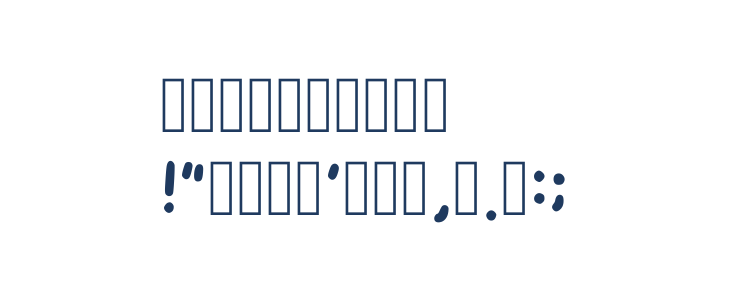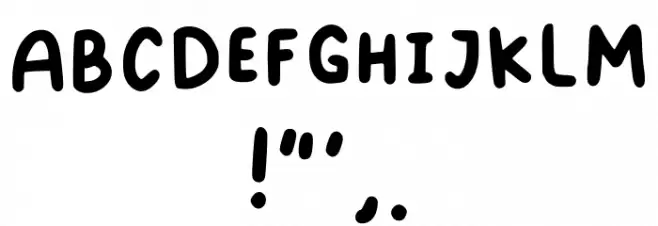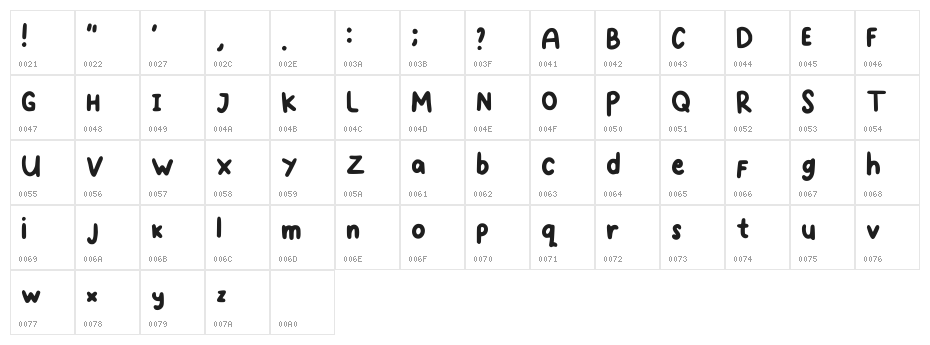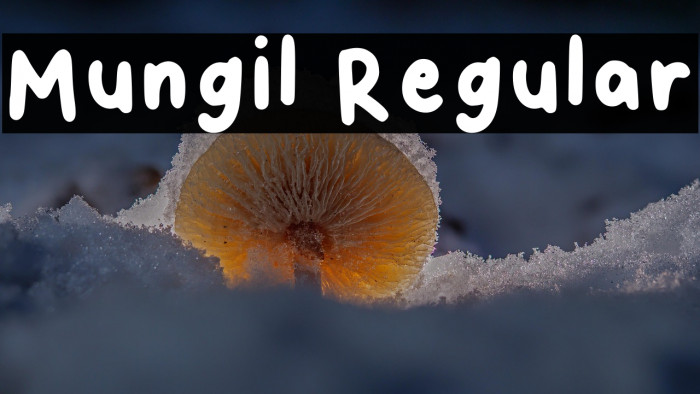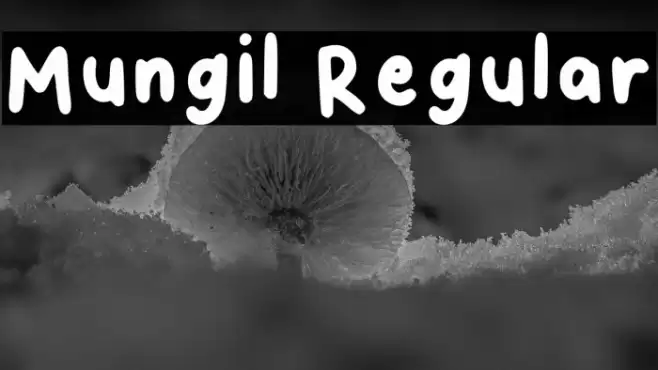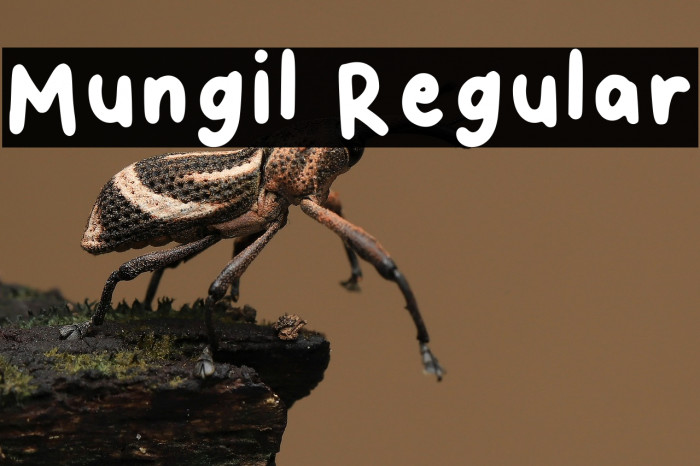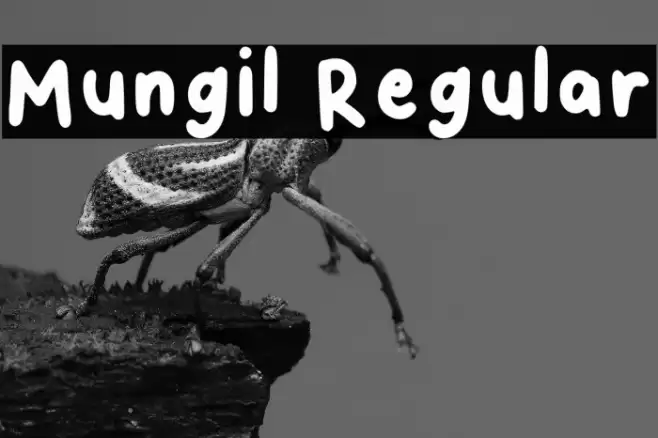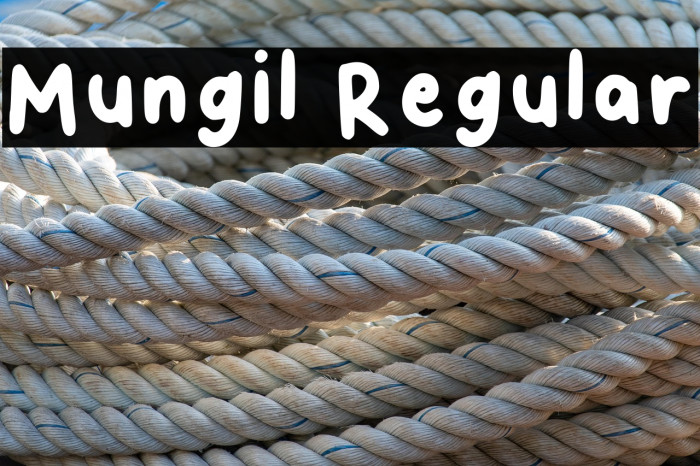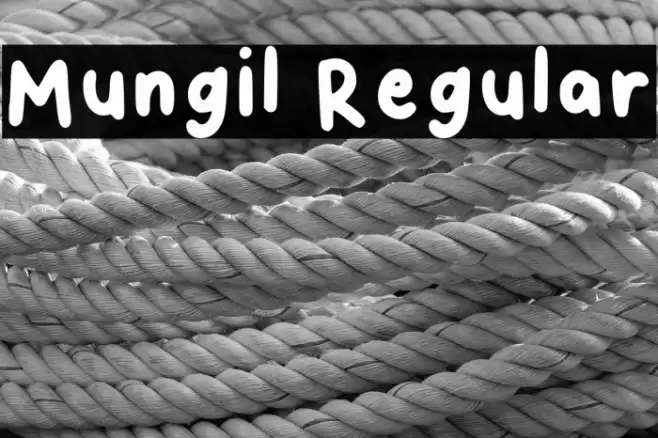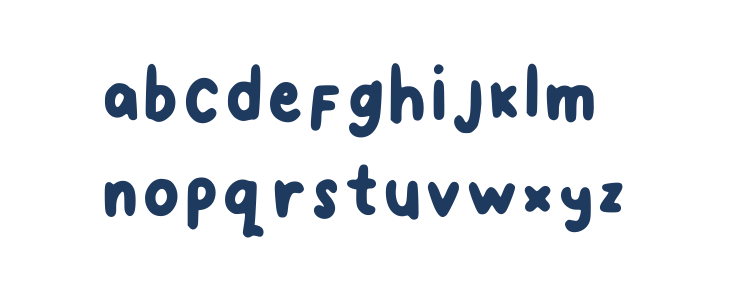
Mungil Regular Font
Mungil Regular Description
This font features a playful and rounded style, characterized by its bold and friendly appearance. The letters are slightly irregular, giving it a hand-drawn feel that adds a touch of whimsy and charm. The uppercase and lowercase letters maintain a consistent weight, contributing to its cohesive look. The strokes are thick and uniform, with minimal contrast, enhancing its readability. The overall design is casual and approachable, making it suitable for projects that require a personal or informal touch.
| Proposed Projects | Ideal for children's books, greeting cards, playful branding, and informal invitations. |